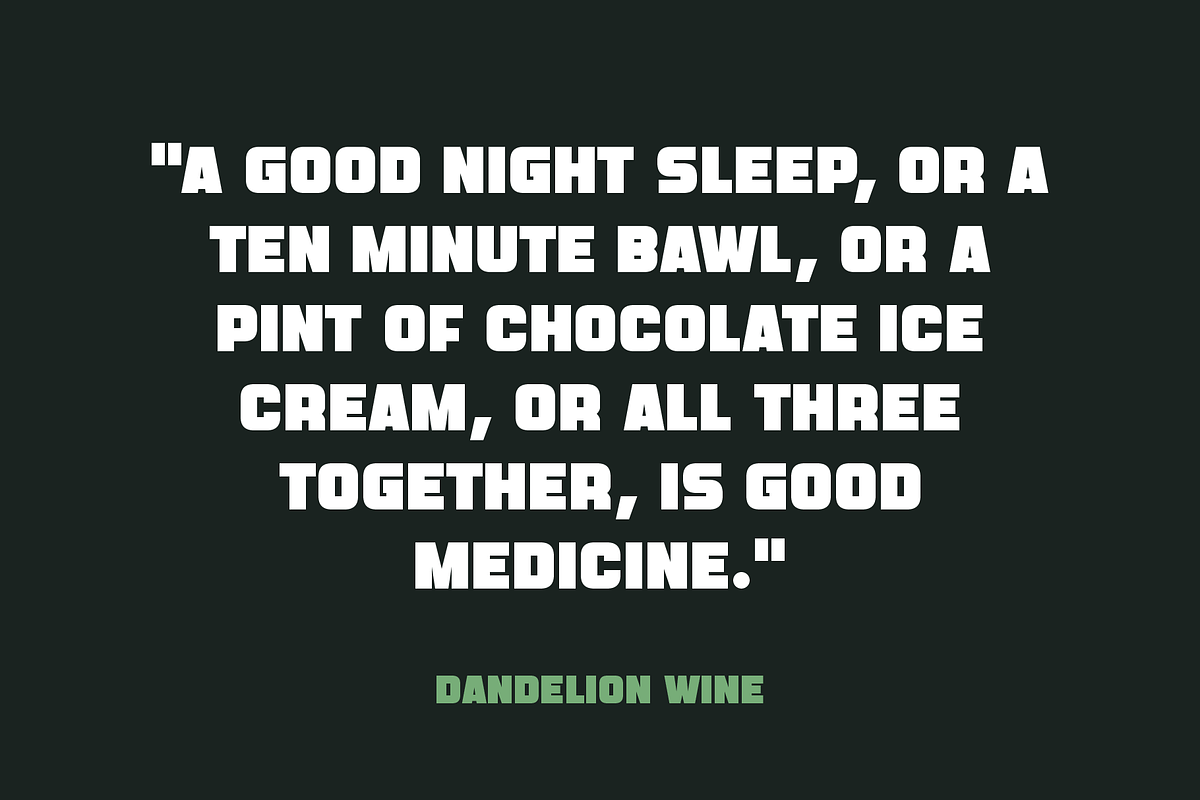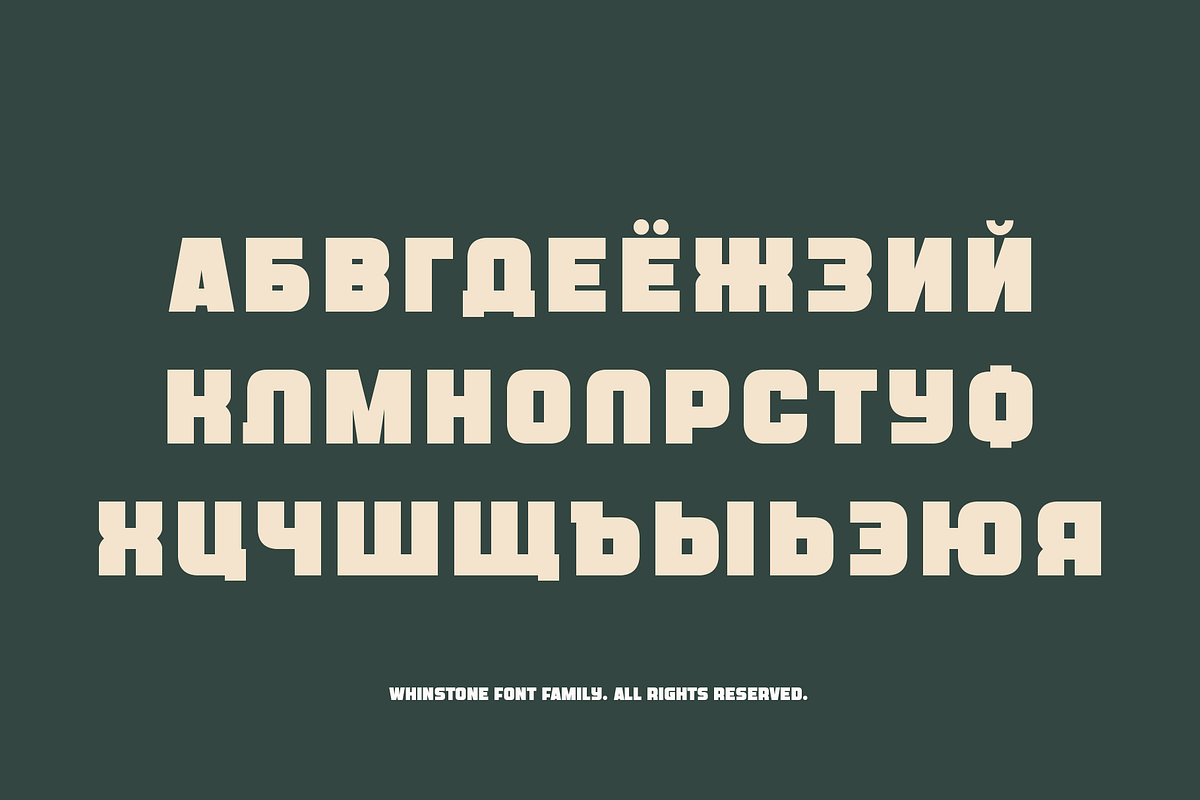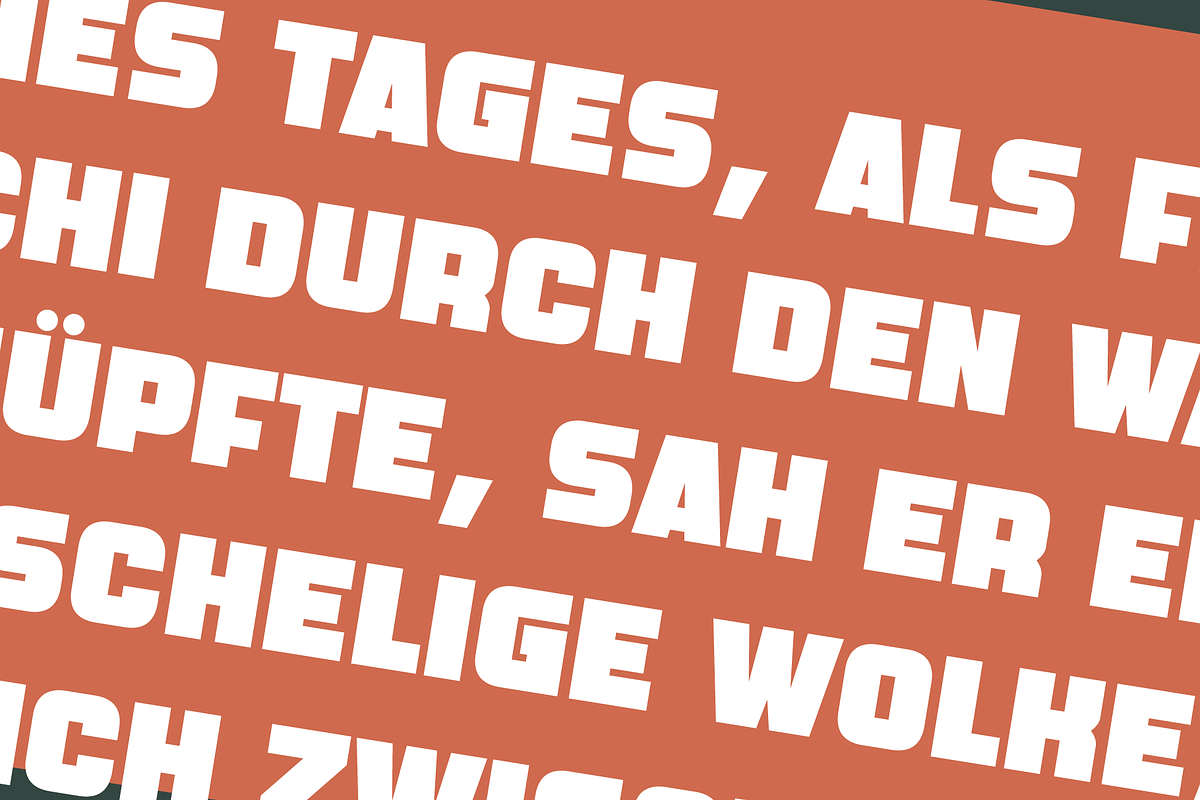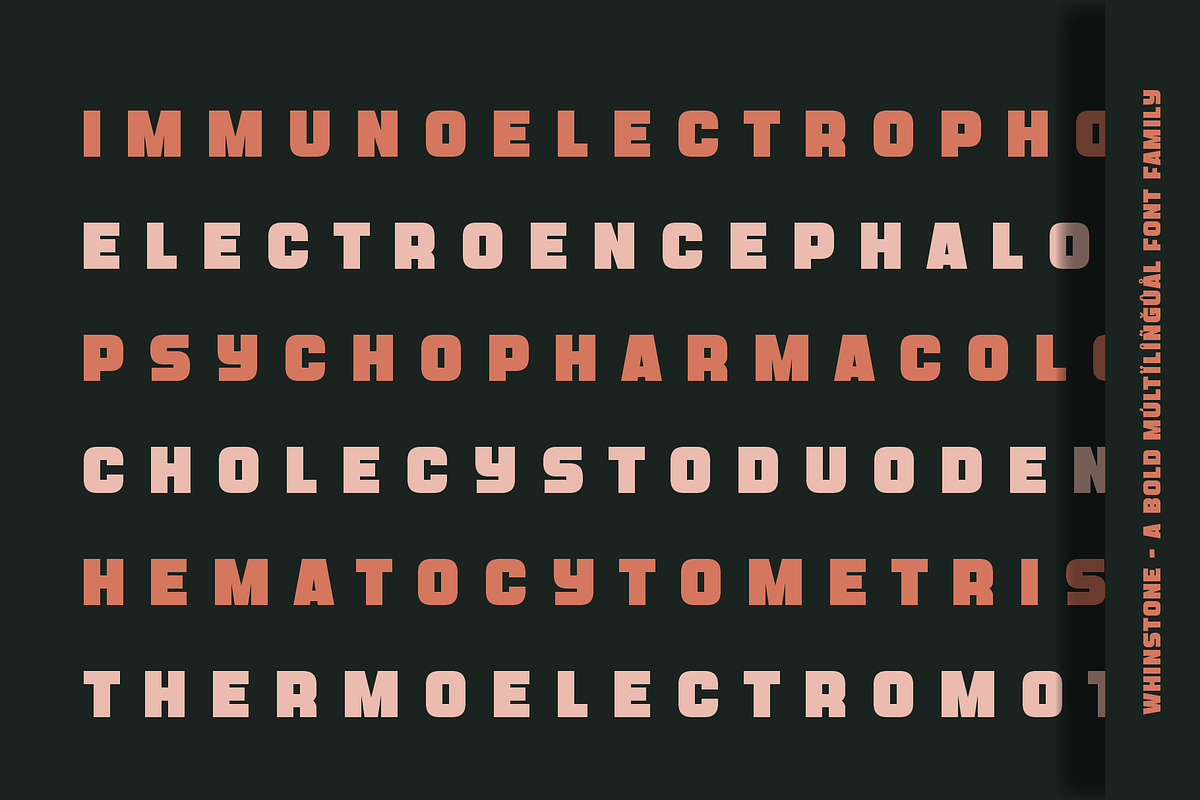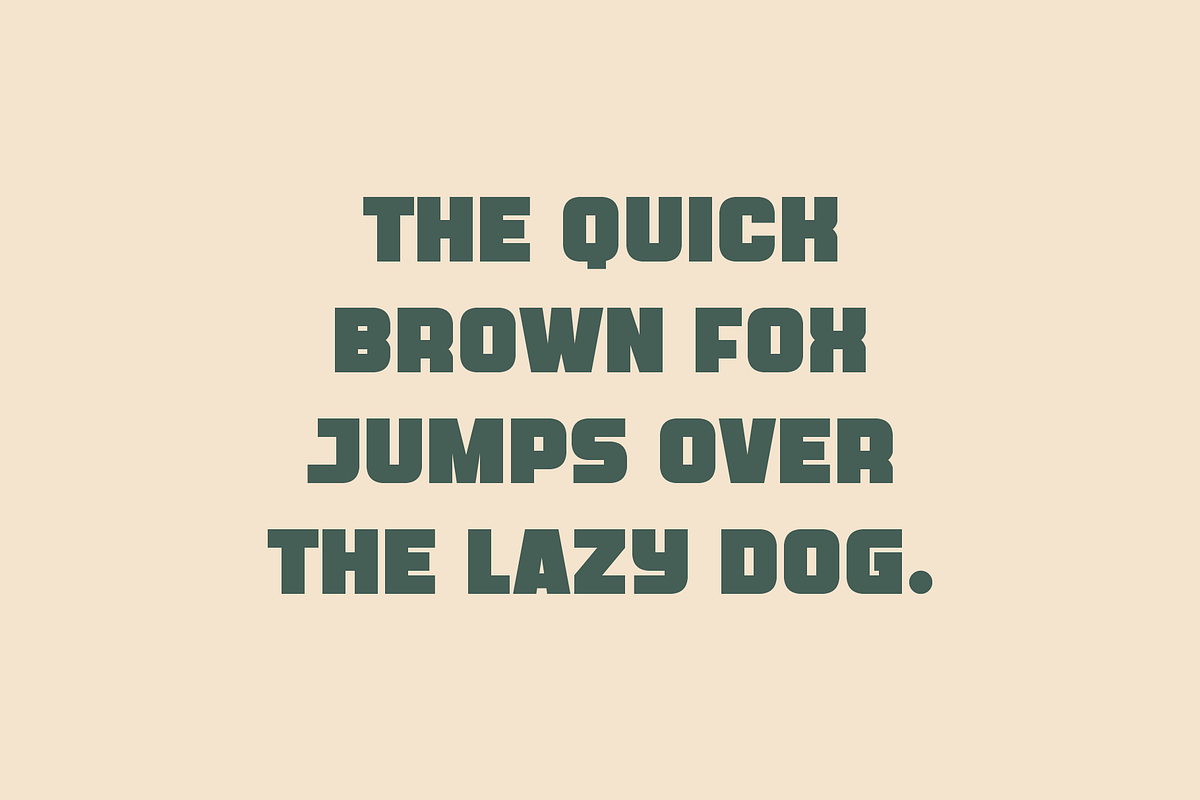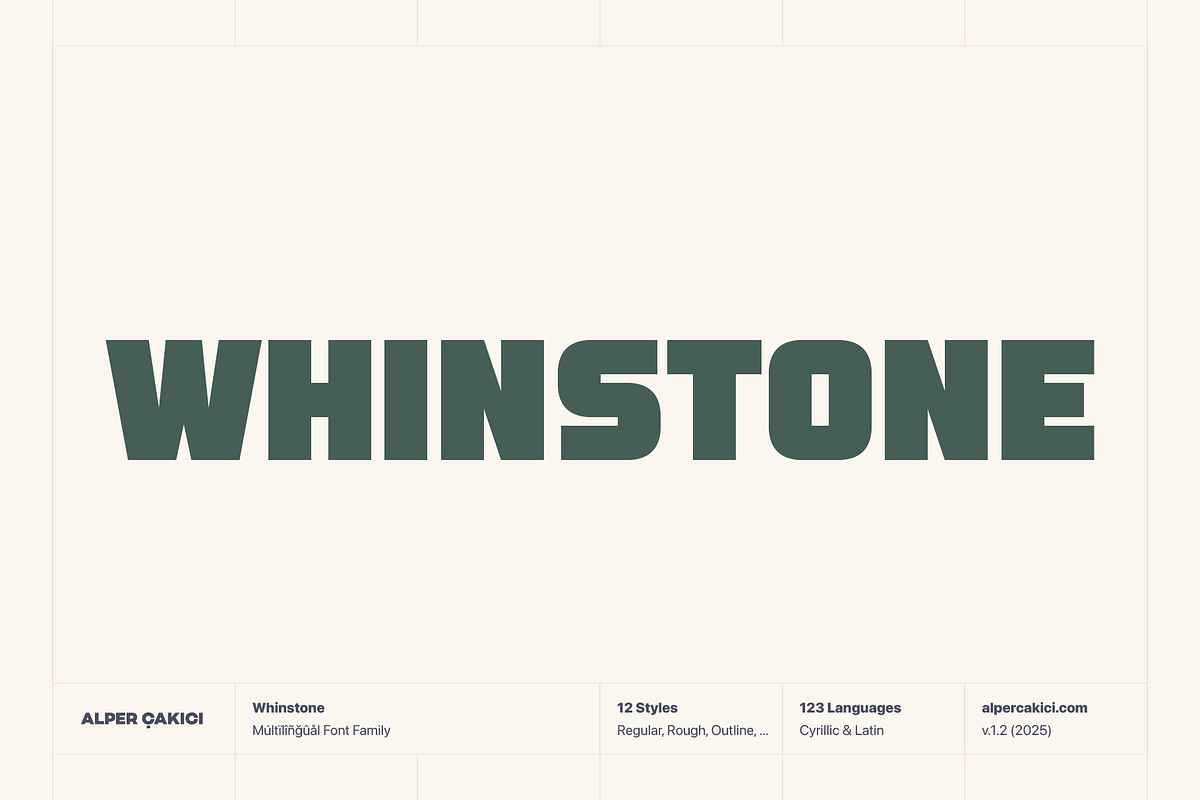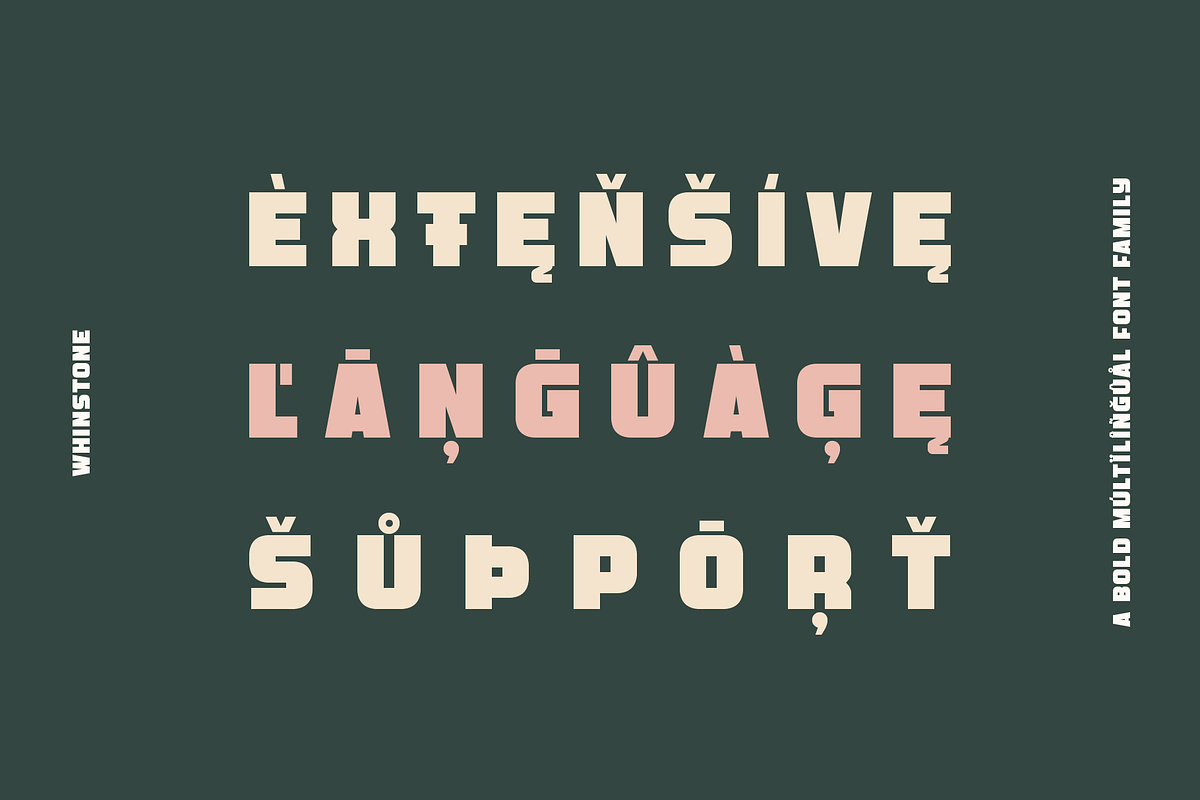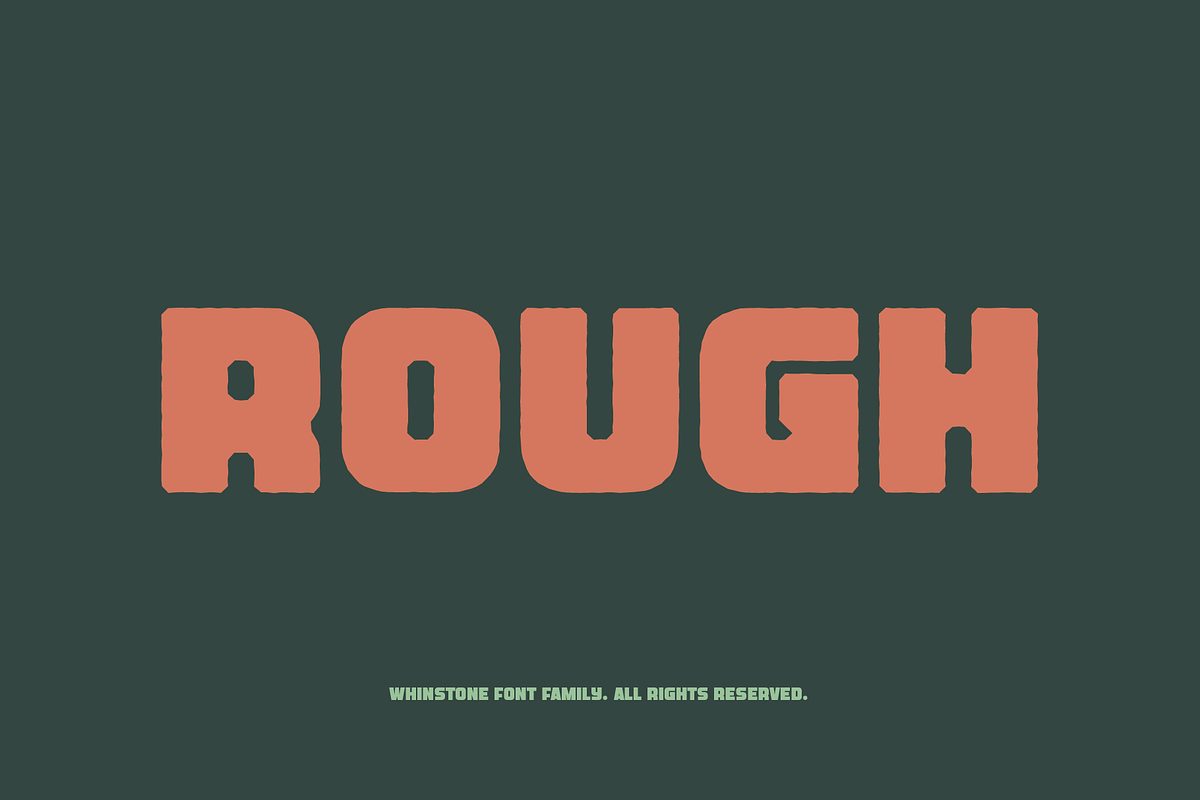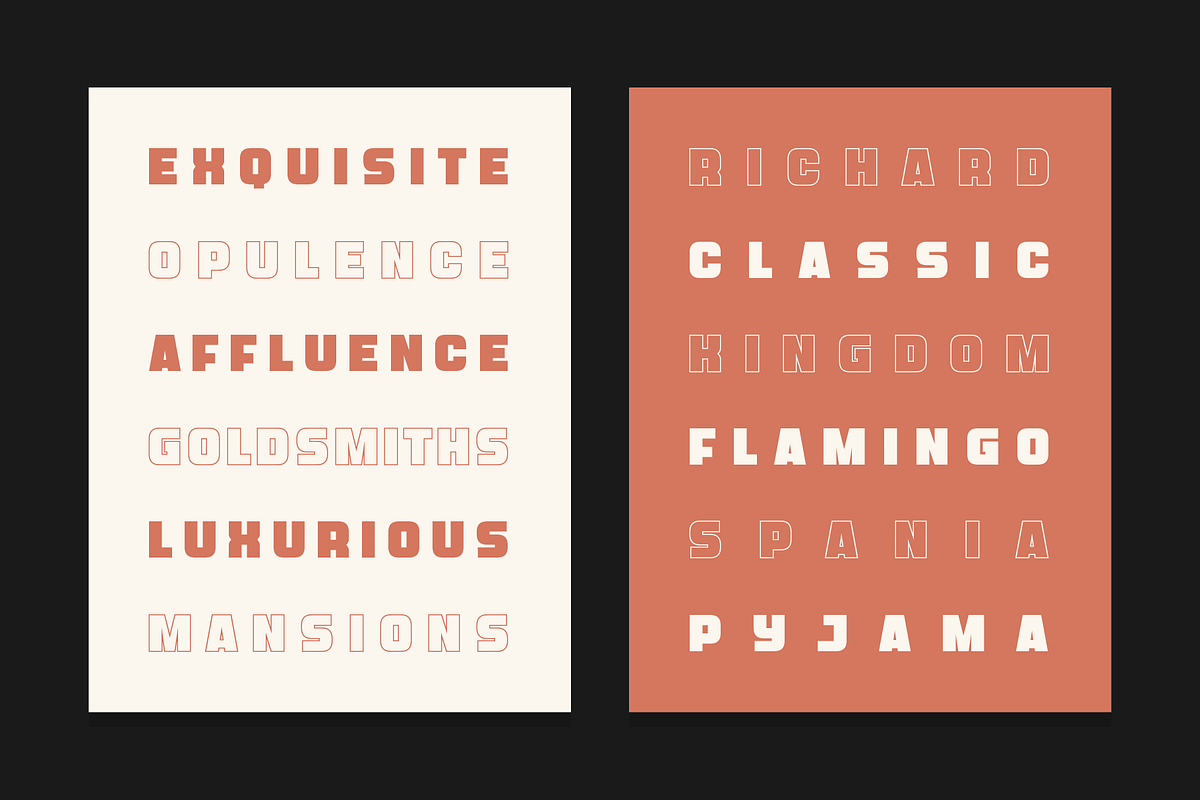
Whinstone - Bold & Cyrillic Typeface
Meet Whinstone, a very bold geometric typeface crafted for designers who love strength and precision.
This 12-style family (Regular, Rounded, Rough, Outline + Italics) supports 123 languages including Cyrillic, making it perfect for global projects. Its strong lines and modern geometry make it ideal for logos, posters, packaging, websites, and branding that need to make a confident statement.
Whinstone combines versatility and power—engineered to look stunning in both display and text applications.
- 12 font styles (Regular, Italics, Rounded, Rough, Outline, etc.)
- Extensive multilingual support (Latin + Cyrillic, 123 languages)
- Perfect for branding, headlines, and editorial use